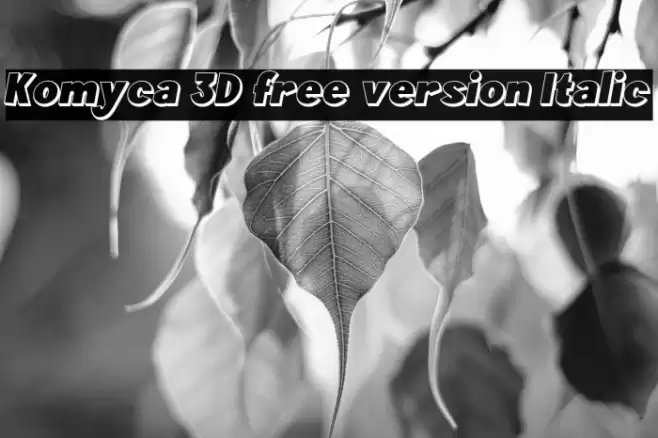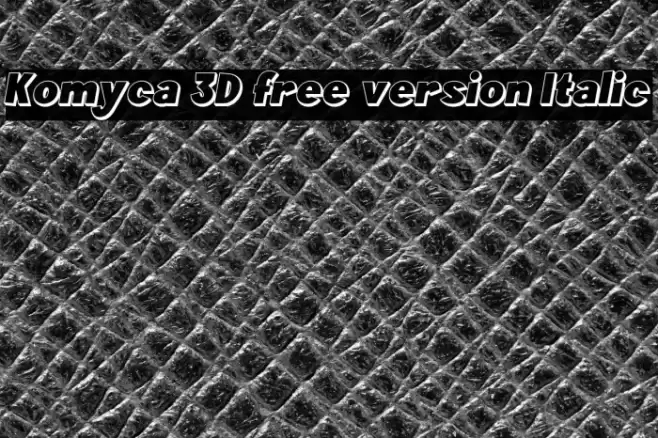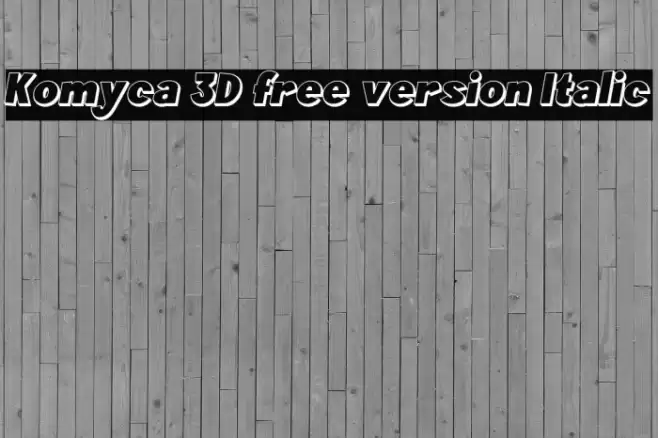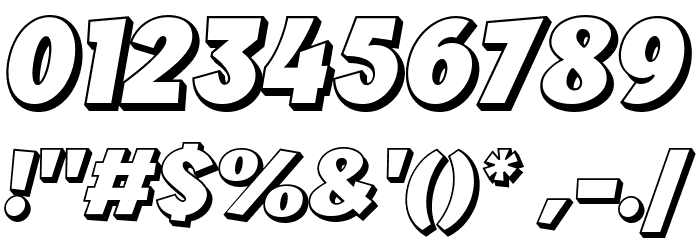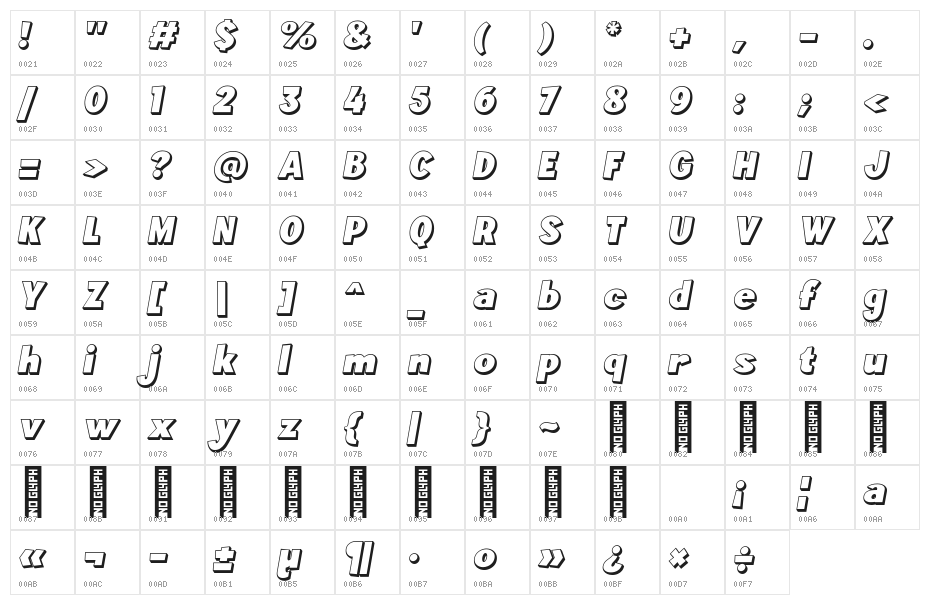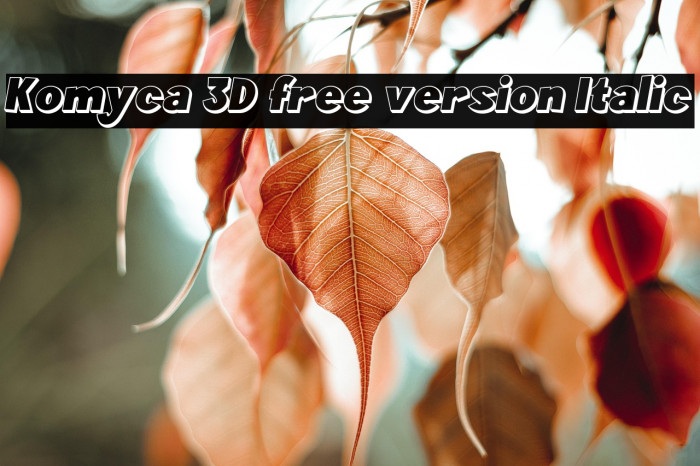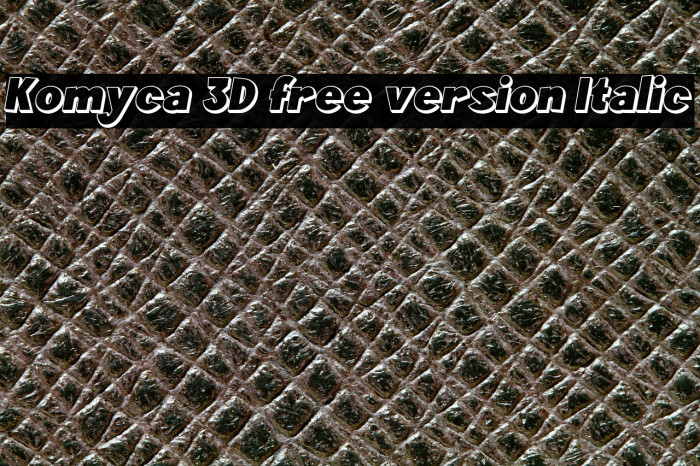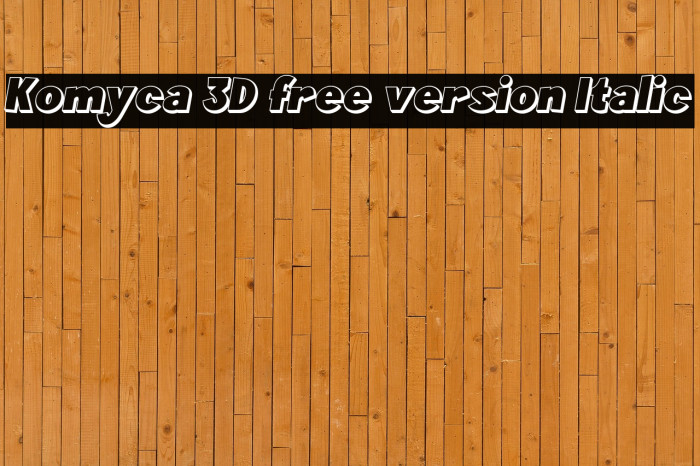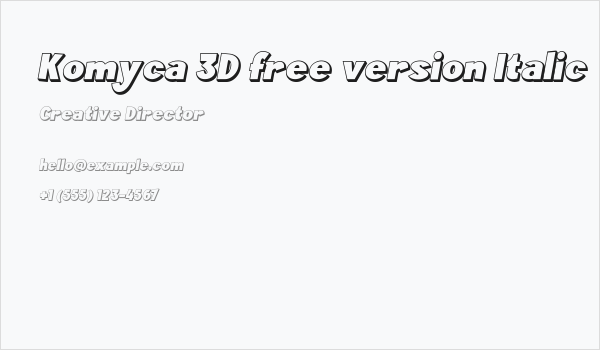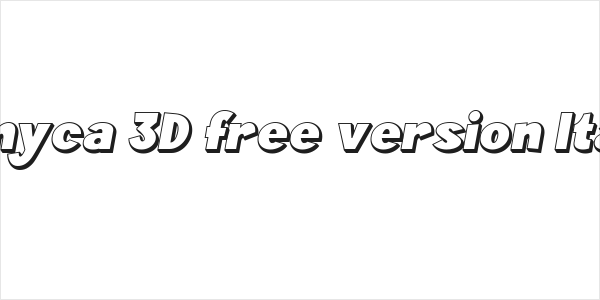
Komyca 3D free version Italic Font
Komyca 3D free version Italic Description
This font features a bold, three-dimensional appearance with a distinct italic slant, giving it a dynamic and energetic look. The characters are outlined, creating a shadow effect that enhances the 3D illusion. The uppercase and lowercase letters maintain a consistent style, with rounded edges and a playful, cartoon-like quality. The numerals and special characters follow the same design principles, ensuring uniformity across all glyphs. This font's unique style makes it stand out, perfect for eye-catching designs.
A bold, 3D italic font with a playful, cartoon-like style from Uncategorized fonts.
- Font: Komyca 3D free version Italic
- Weight: Italic
- Proposed Projects: Ideal for comic book titles, children's book covers, playful branding, and eye-catching posters.
- Overall Style: Decorative